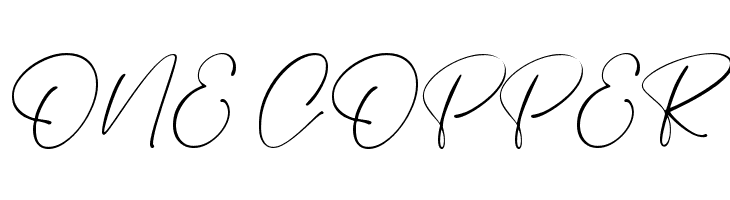
A graceful script font with flowing, interconnected letters.
• BabyChild
A modern, elegant script font with flowing, cursive characters.
• BabyJeepers-Regular
A whimsical and decorative font with gothic and cartoon influences, featuring bold strokes and intricate details.
• Babyla Free
A playful, whimsical script font with flowing, interconnected letters.
• babylittle